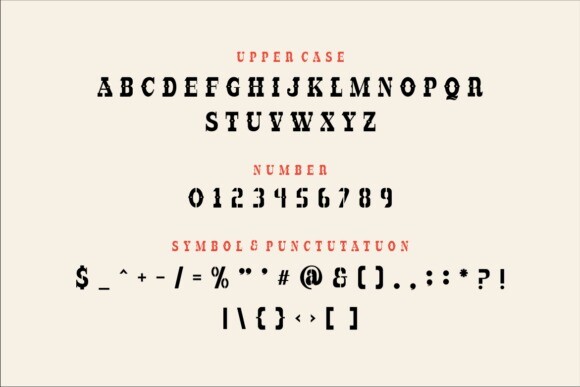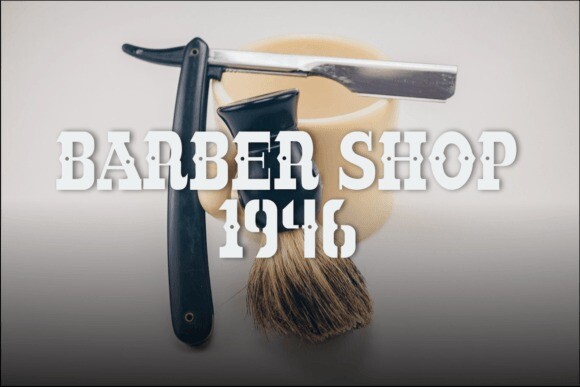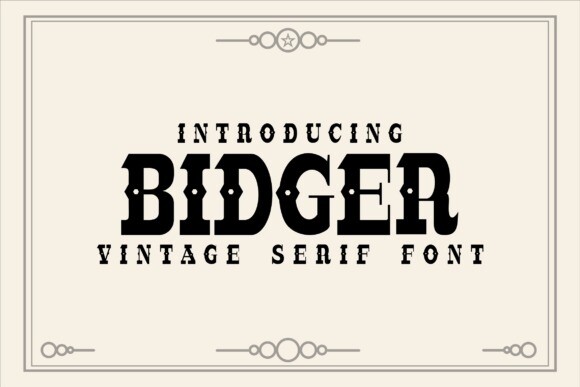
Bidger Font
BIDGER font is a font that we created from our desire to create a vintage, simple and attractive font. We included some simple accents to add a vintage and attractive impression. In several views, we have used it for use in barber shops, cafés and old school posters as a font.